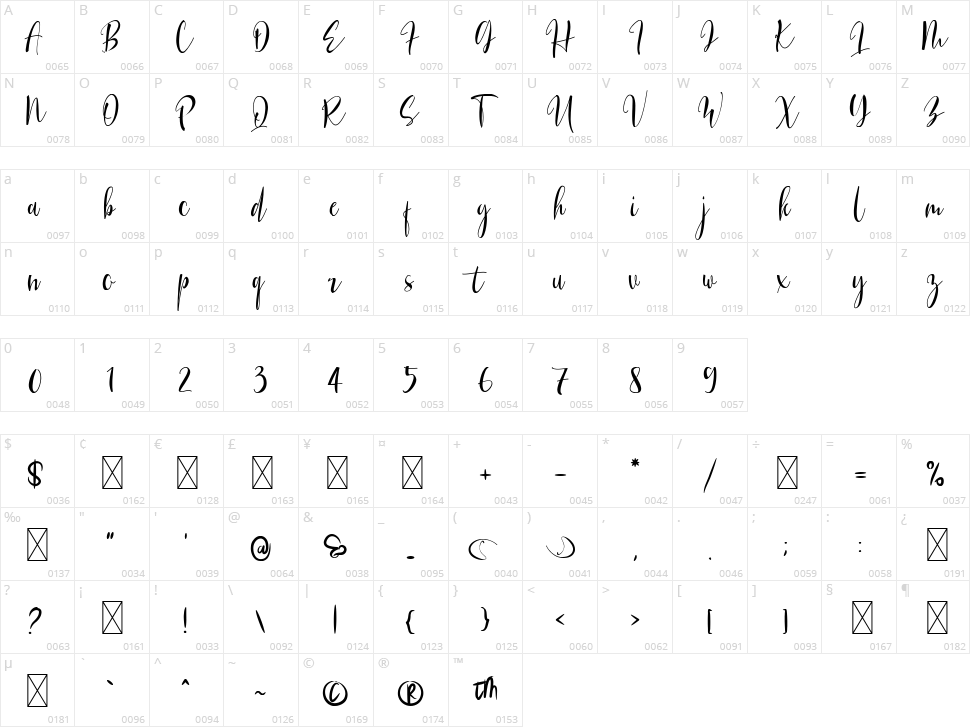
Generating Script
Generating Script Font is a handwritten font. It's the perfect font for all your fun designs. Everything is made with the funny brush. So you can be sure they will work well together! Because we have compiled kerning and matrices that are tailored to your needs.